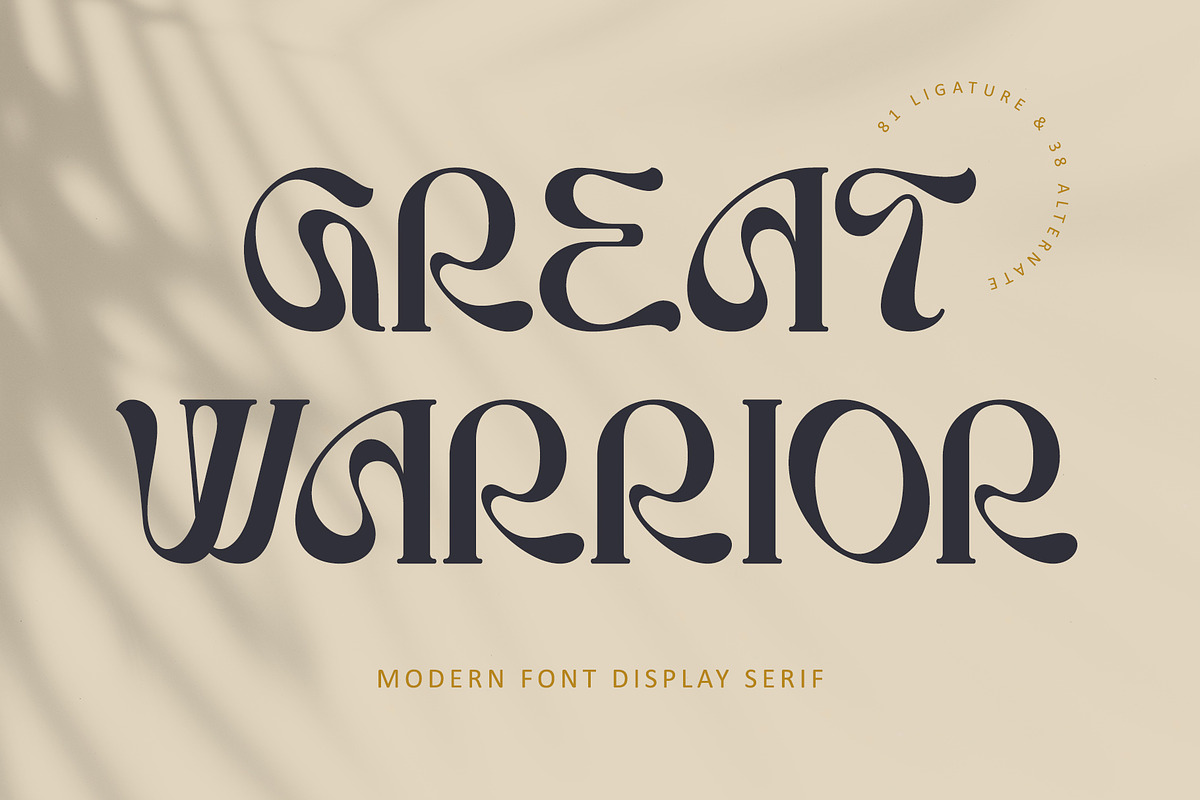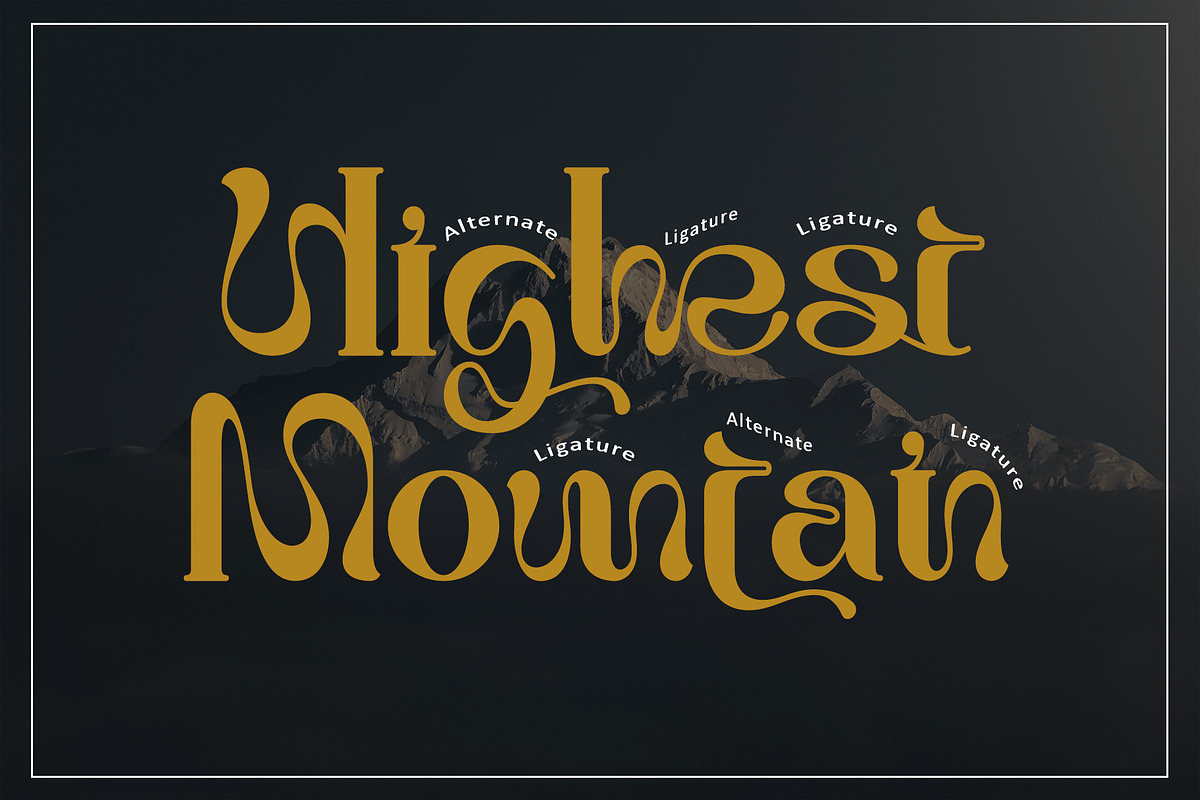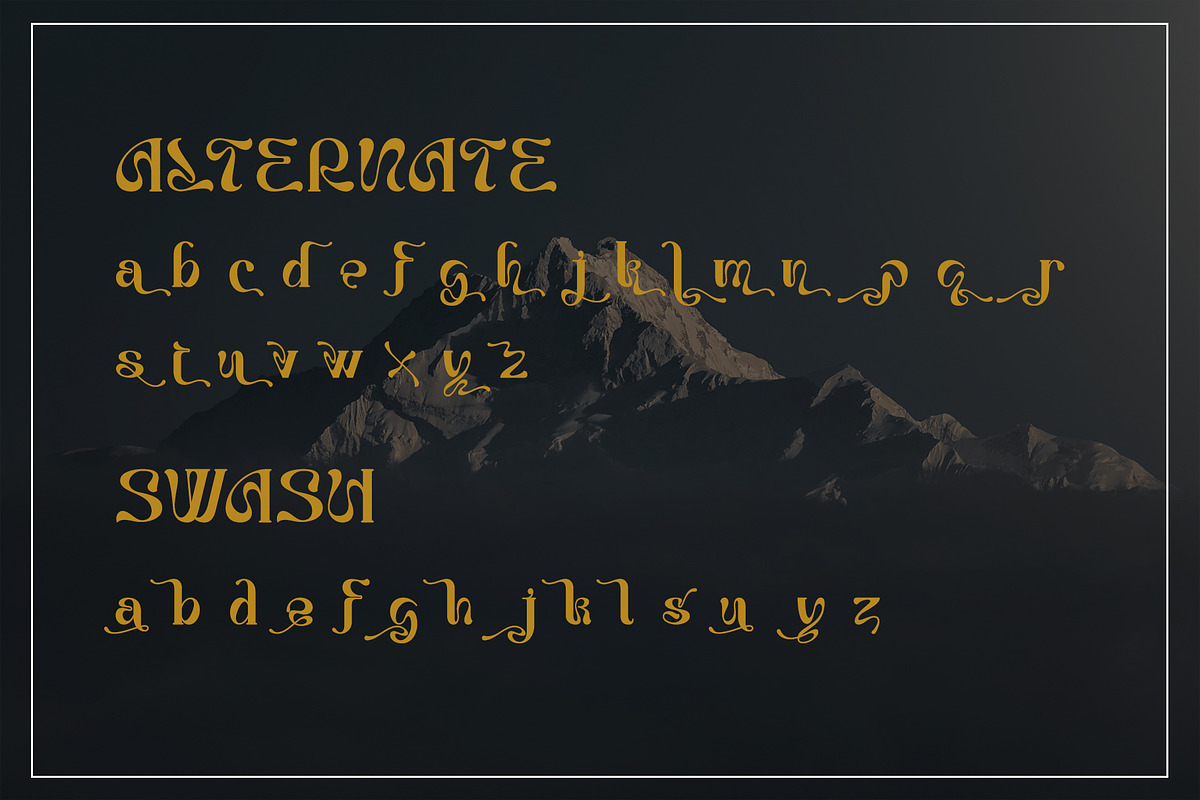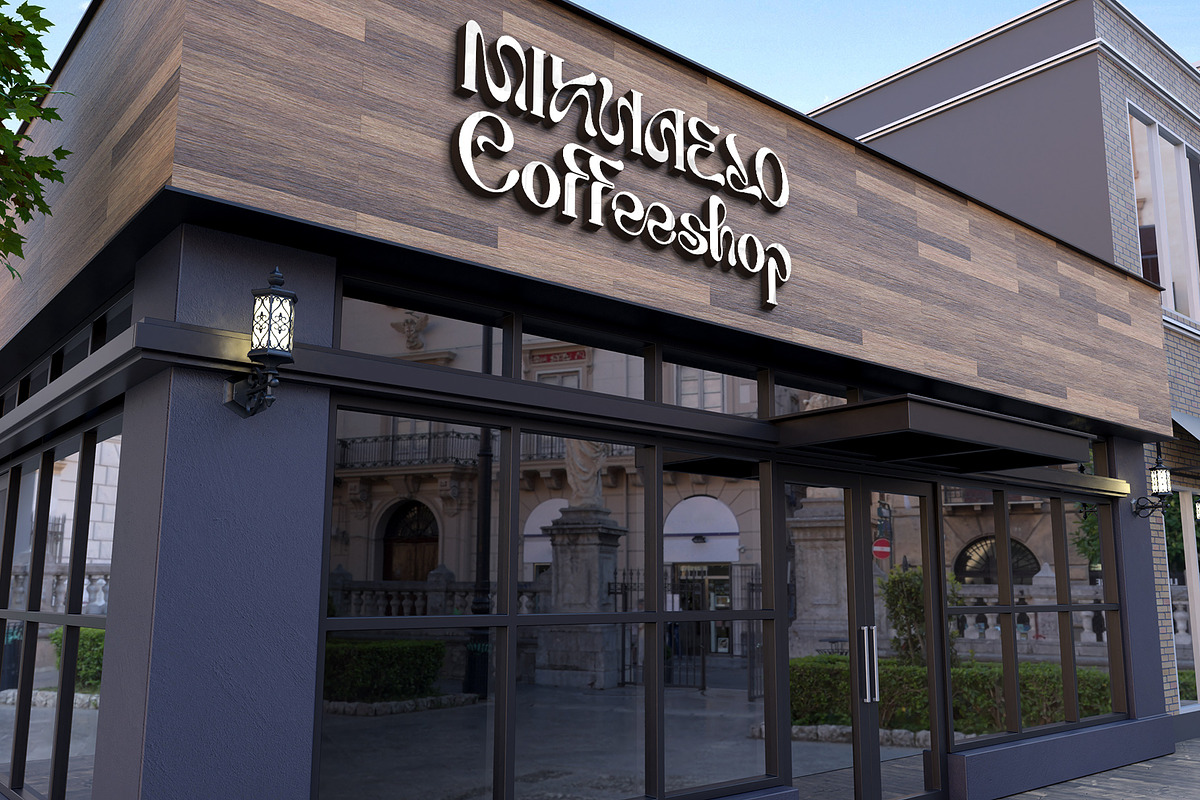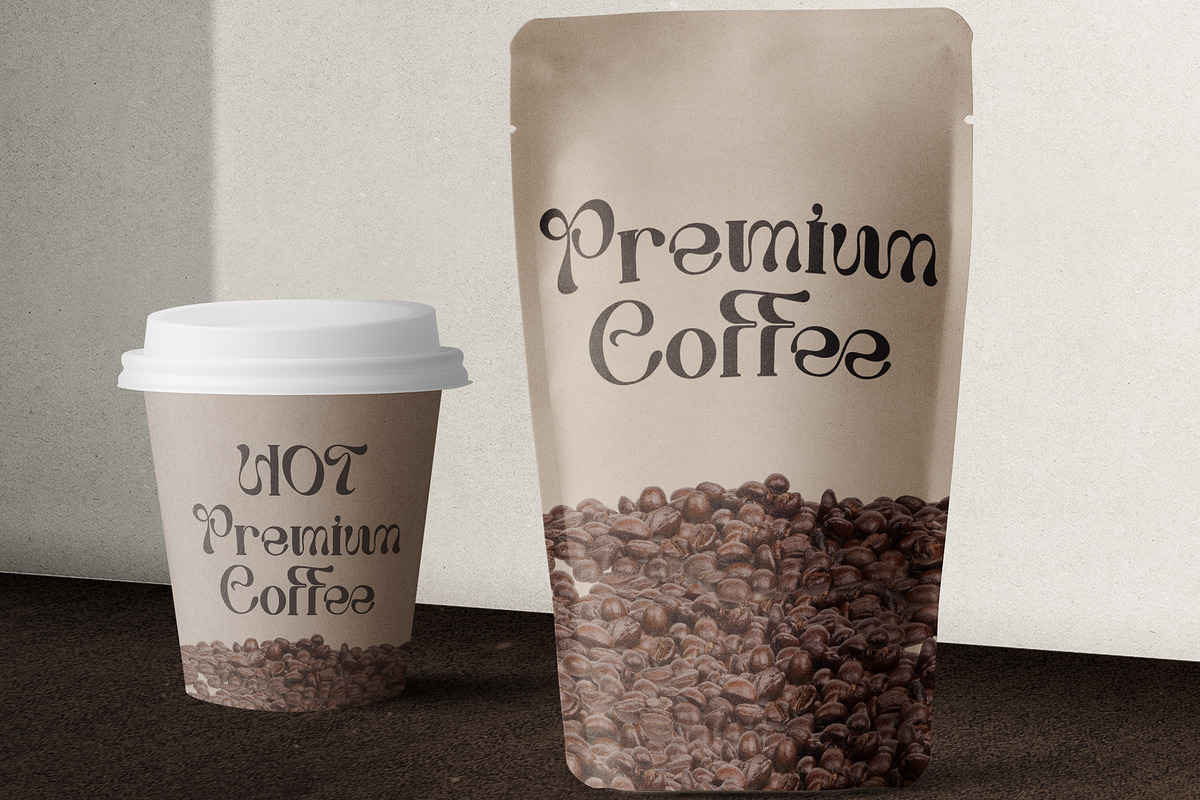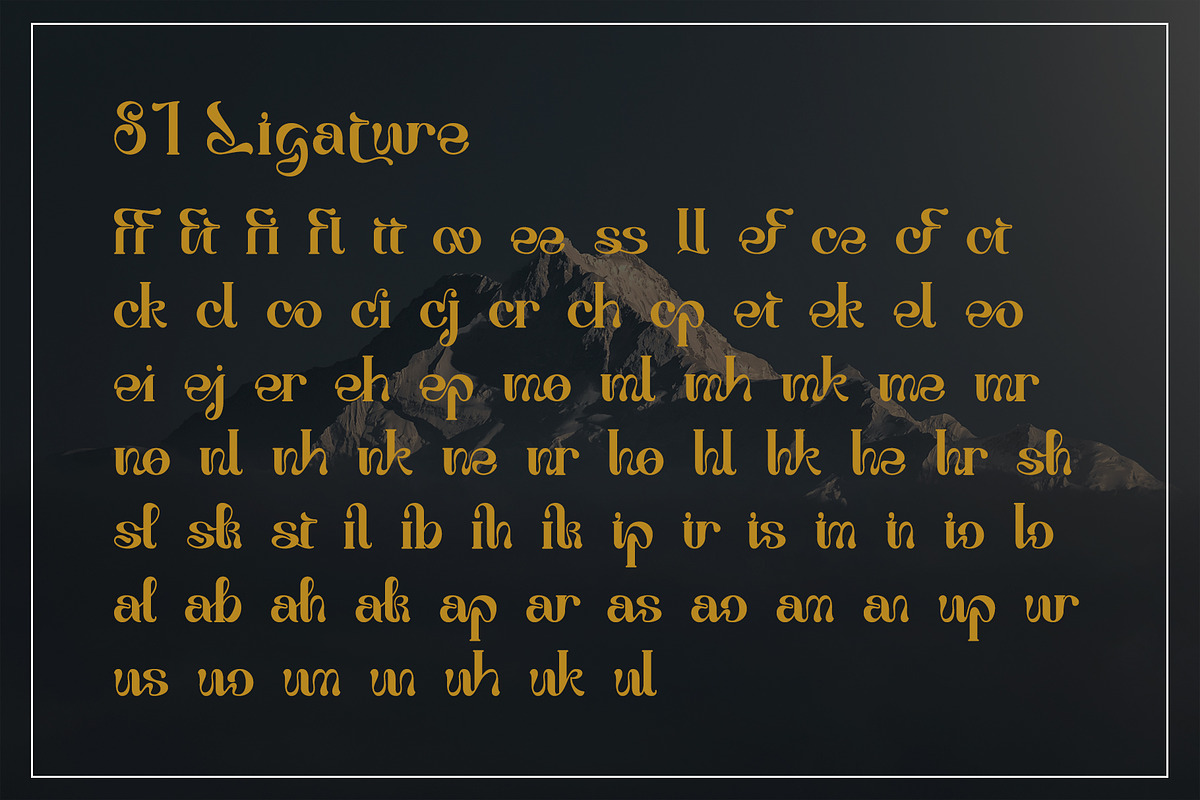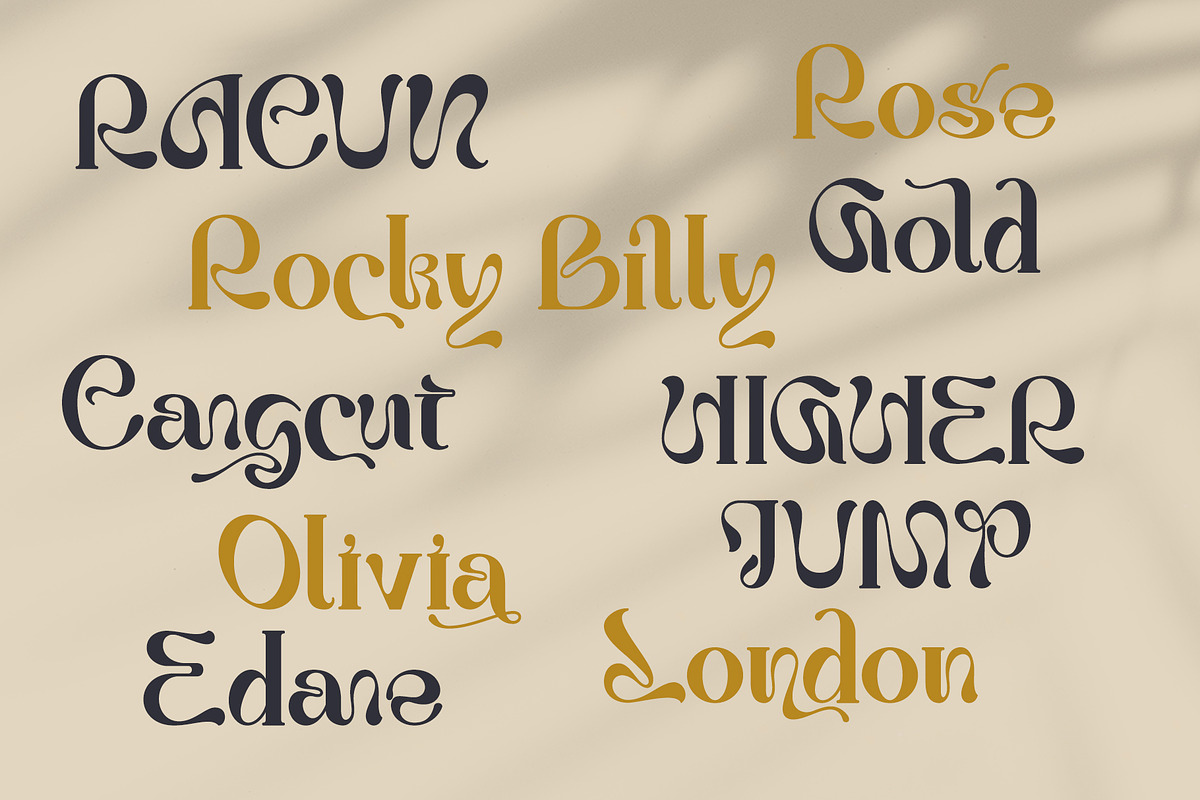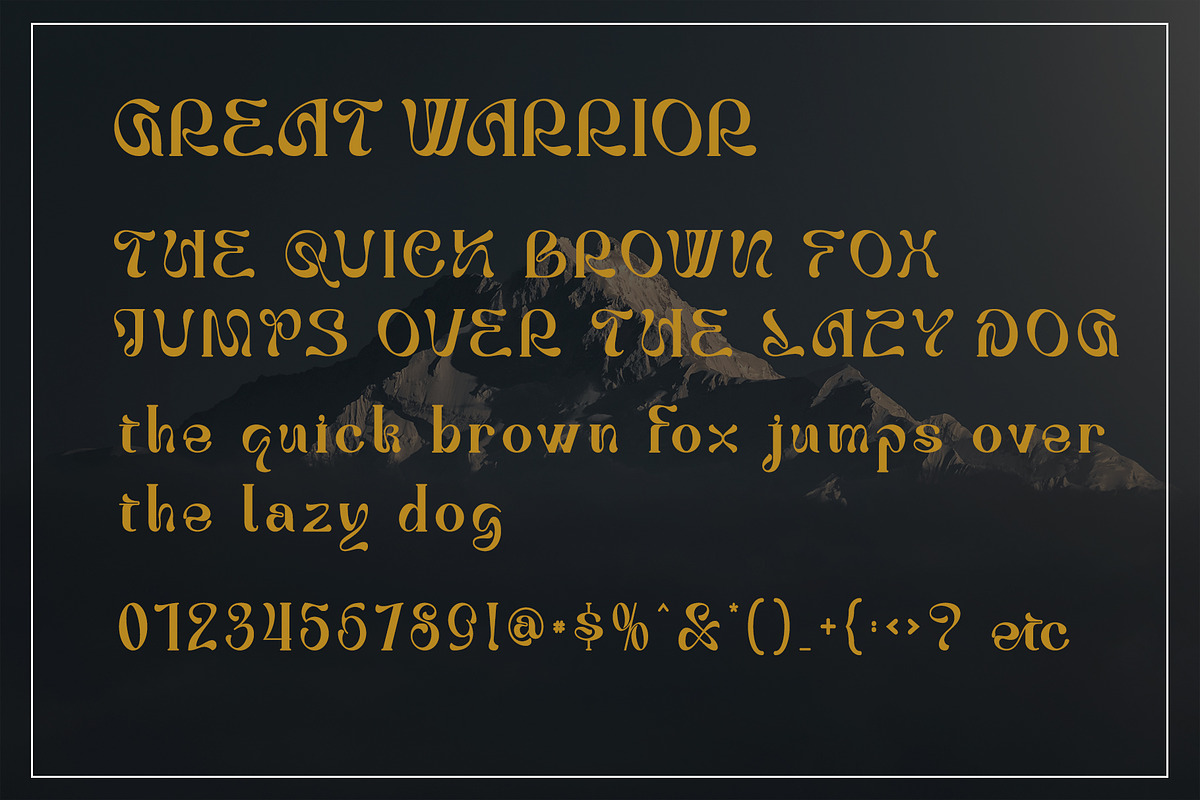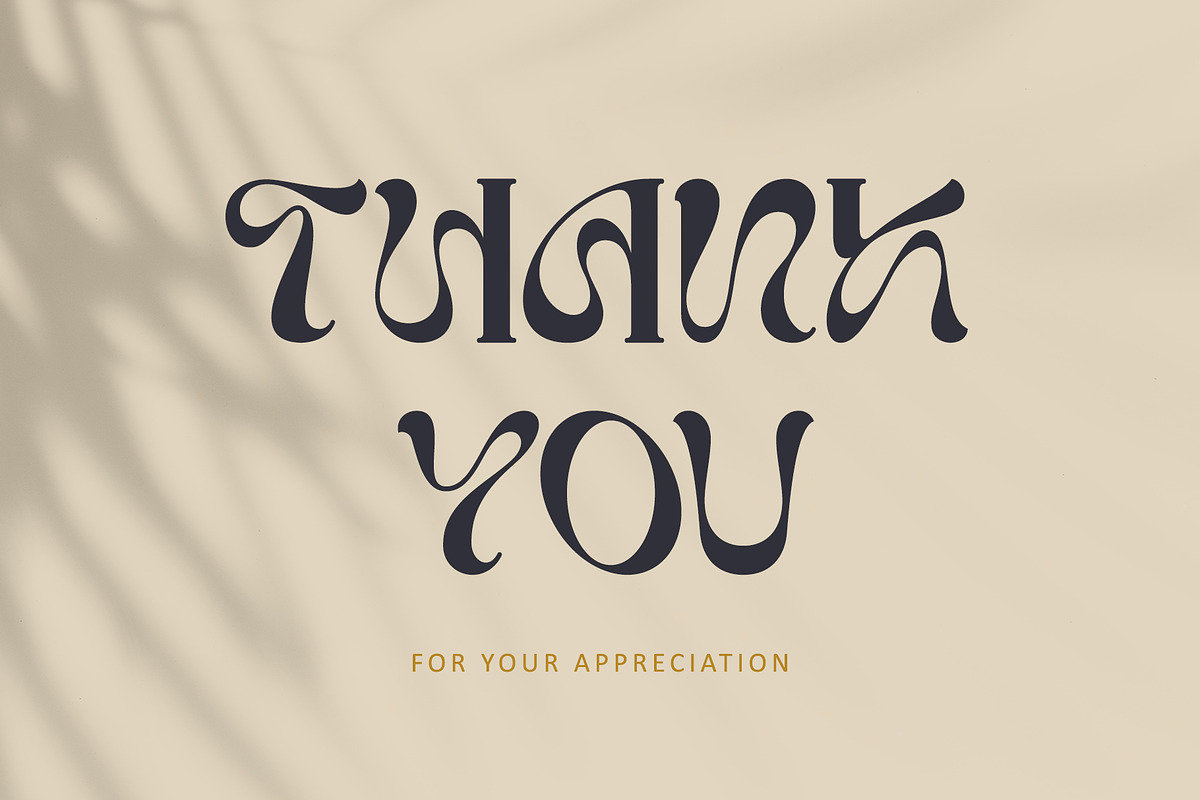
Great Warrior
Great Warrior is a modern serif font family with a unique and classy style. It has a modern and vintage look. this font is suitable for many projects, for modern or even retro vintage design, branding, crafting, sticker, sublimation, wedding invitation, advertising, vintage mood boards, logotype, packaging, titles, editorial design, and many more. This font is PUA encoded, which means you can easily access all of the glyphs and washes!
Many Features:
- Support multilingual; ä ö ü Ä Ö Ü ß ¿ ¡
- lowercase and uppercase letters
- Alternate, Swash, Titling, & Ligature.